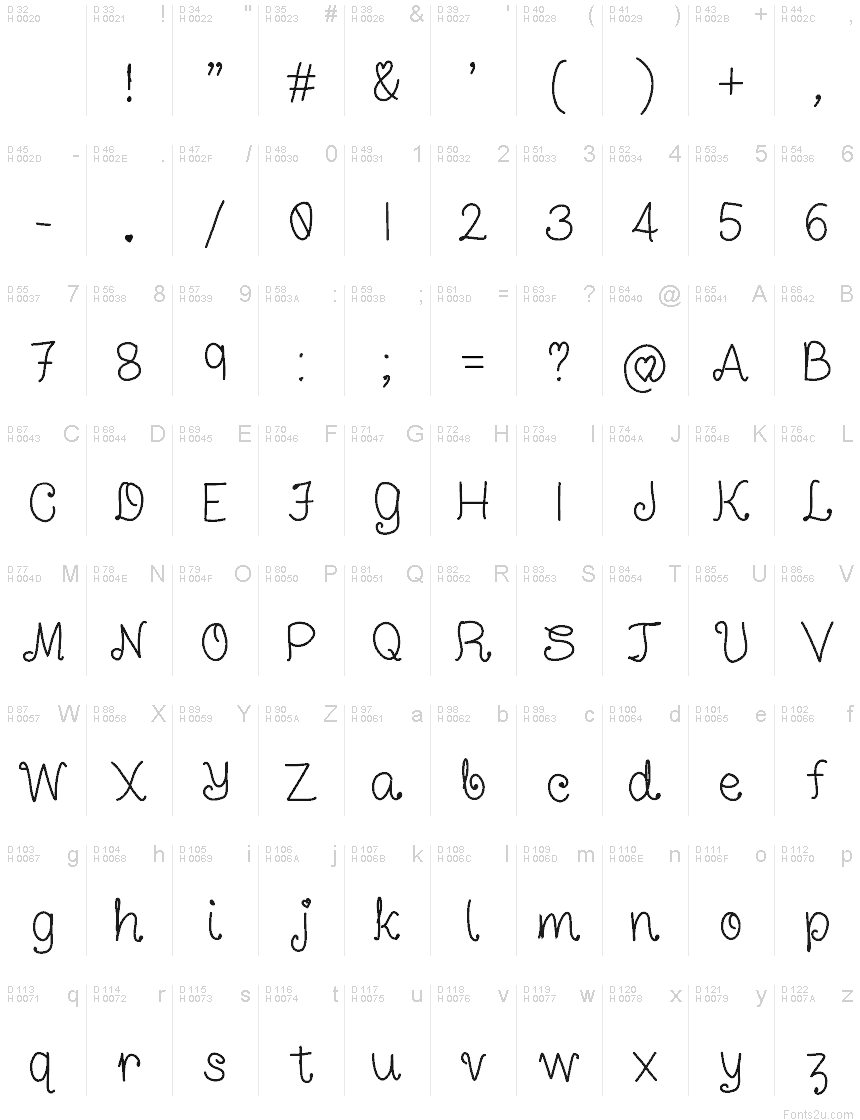
Panda
Panda is a free handwritten font with a loose, friendly bounce. The letters feel drawn in one easy motion, mixing rounded bowls with tall, slightly wavering strokes and a few playful looped touches that keep it casual rather than polished.
It fits naturally in greeting cards, café menus, scrapbook titles, packaging labels, and blog header graphics, where that light pen-made rhythm feels human and unforced. As a free font, Panda also works well for short quotes, name badges, and simple monograms, especially when you want the letters to look personal without turning overly cute.